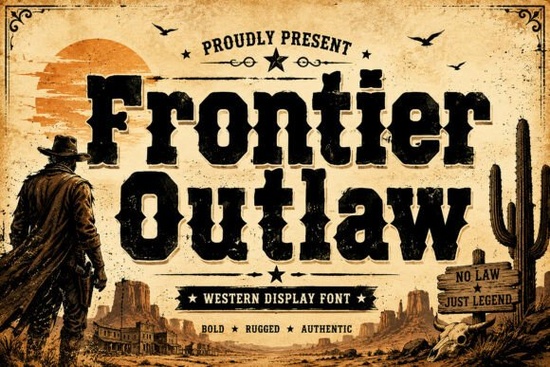
Looking for a typeface that captures the rugged charm of the Old West? Frontier Outlaw Font is a bold vintage display typeface built for designers who want that authentic cowboy look. Inspired by old saloon signs, wanted posters, and frontier-era typography, it brings a strong western personality to any project from branding to merchandise.
What Makes This Western Font Stand Out?
There are plenty of western-themed fonts out there, but Frontier Outlaw has a few things going for it. The slab-serif letterforms feel heavy and deliberate, like they were carved into wood or painted on a saloon window. Each character carries that worn, weathered quality you'd expect from authentic frontier design without looking sloppy or hard to read.
It works well at large sizes, which makes it a strong choice for:
- Logo design and wordmarks
- Poster and signage layouts
- Product packaging and labels
- T-shirt and apparel graphics
- Rodeo or country event branding
- Whiskey, bourbon, or craft brewery labels
If you've been searching for a bold display font with real western character, this one fills that niche well it looks genuinely western without crossing into cartoon territory.
Who Is This Font Best For?
This typeface works well for a range of creative professionals. If you run a print-on-demand shop and sell rustic or country-themed designs, it can save you a lot of time. Instead of hand-lettering a western look from scratch, you get a polished typeface that's ready to use.
Small business owners in the food, beverage, or outdoor industry will also find it useful. Think about craft distillery branding, BBQ restaurant menus, or ranch-style wedding invitations. The font has enough weight and character to anchor a design without needing much extra decoration.
Crafters working on SVG projects, sublimation prints, or Cricut designs will appreciate that it's clean enough to cut well and bold enough to show up on busy backgrounds.
How Does It Compare to Other Display Fonts?
Choosing the right display font really depends on the mood you're after. Frontier Outlaw leans heavily into western tradition, so it pairs best with earthy colors, textured backgrounds, and vintage design elements.
Each of these has its own personality. The key is matching the font's tone to your project's message.
Best Practices When Using a Western Display Font
A font like this can easily dominate a layout if you're not careful. Here are a few practical tips to keep in mind:
- Limit it to headlines and titles. Body text in a heavy slab-serif font is tough to read at small sizes.
- Pair it with a clean sans-serif. Something simple and modern keeps the layout balanced and legible.
- Use enough letter spacing. Tight kerning on heavy display fonts makes text feel cramped and hard to scan.
- Choose the right background. Textured, earthy, or muted backgrounds complement the frontier aesthetic. Busy patterns can fight with the letterforms.
Where Does Frontier Outlaw Work Best?
Think about the projects where a bold, western typeface adds real value:
- Rodeo and country event posters the font does the heavy lifting in the headline
- Whiskey and craft beverage labels pairs well with aged paper textures and earth-tone palettes
- Western-themed merchandise t-shirts, hats, and stickers with a vintage frontier feel
- Rustic wedding invitations for couples going with a barn or country setting
- Restaurant branding BBQ joints, steakhouses, and southern-style eateries
Before you start designing, run through this quick checklist:
- ✅ Confirm the font matches your project's tone western, rugged, and vintage
- ✅ Pair it with a simple body font for readability
- ✅ Test the font at the size you plan to use display fonts are built for large text
- ✅ Keep your color palette earthy and muted to match the font's character
Frontier Outlaw Font is a solid, ready-to-use typeface if you're after that authentic Wild West aesthetic. It won't solve every design problem, but for the right project, it delivers exactly the look you'd expect from a frontier-inspired display font.